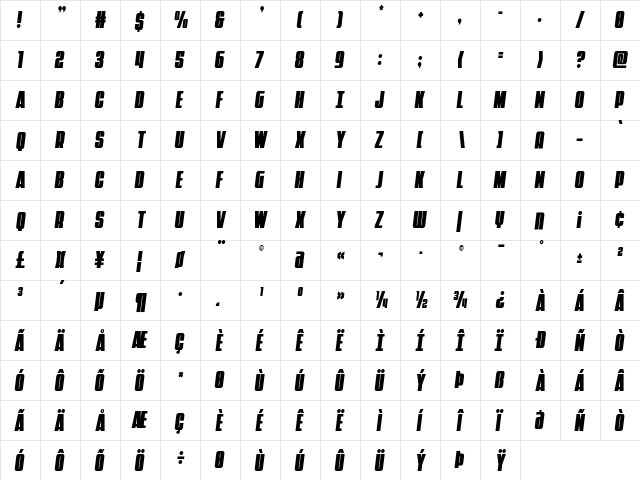
Punch Condensed Semi-Italic Regular
Design Context for Punch Condensed Semi-Italic Typeface
Punch Condensed Semi-Italic offers clean, dependable letterforms without strong stylistic allegiance, making it a practical choice for designers who need flexibility. The slanted form adds forward momentum and visual energy. Its narrow stance lets it pack a punch even in space-constrained designs.
Pro Tip: Use Punch Condensed Semi-Italic for emphasis, pull quotes, and subheadings where its slanted energy can add rhythm to the layout.